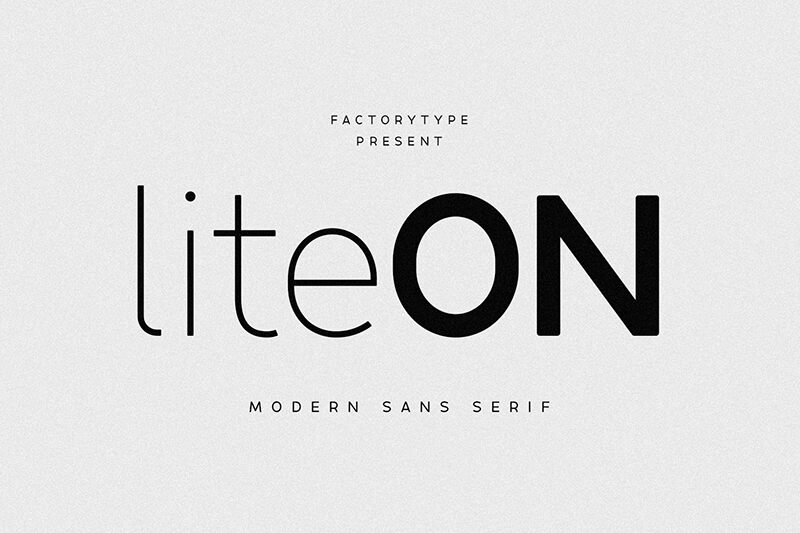
Lite On font by FactoryType is a remarkable sans serif font family that radiates a sleek and modern aesthetic. This free font stands out with its elegant and lightweight character design, perfect for elevating any project. Offering a diverse range of weights, Lite On provides designers the versatility needed to achieve beautiful results across various applications.
Whether you’re crafting a minimalist logo or an eye-catching headline, this font seamlessly adapts to your creative vision.
- 6 Weights
- Basic Latin A-Z and a-z
- Numerals & Punctuation
- Stylistic Ligatures and Alternate glyphs
- Multilingual Support for